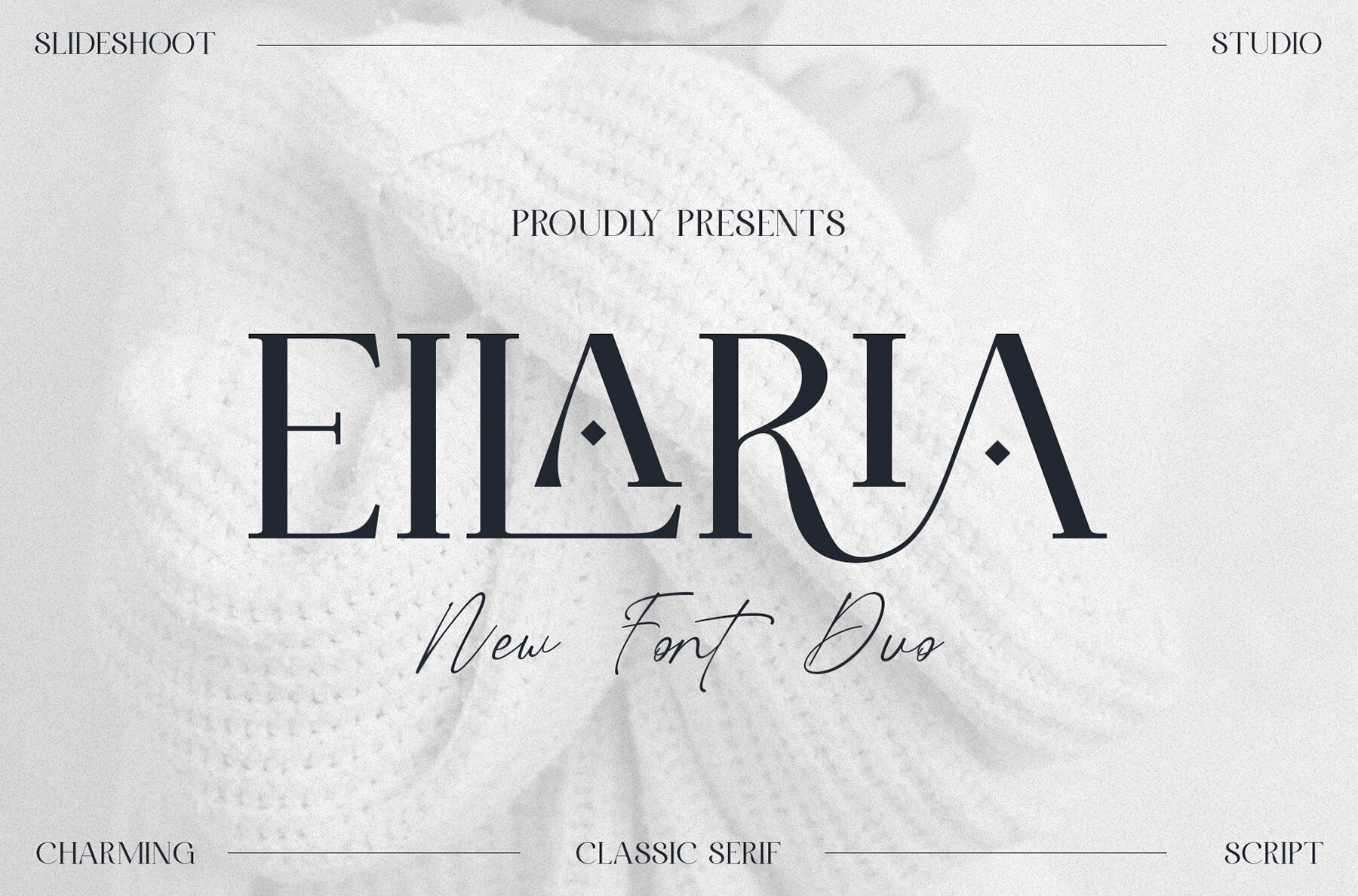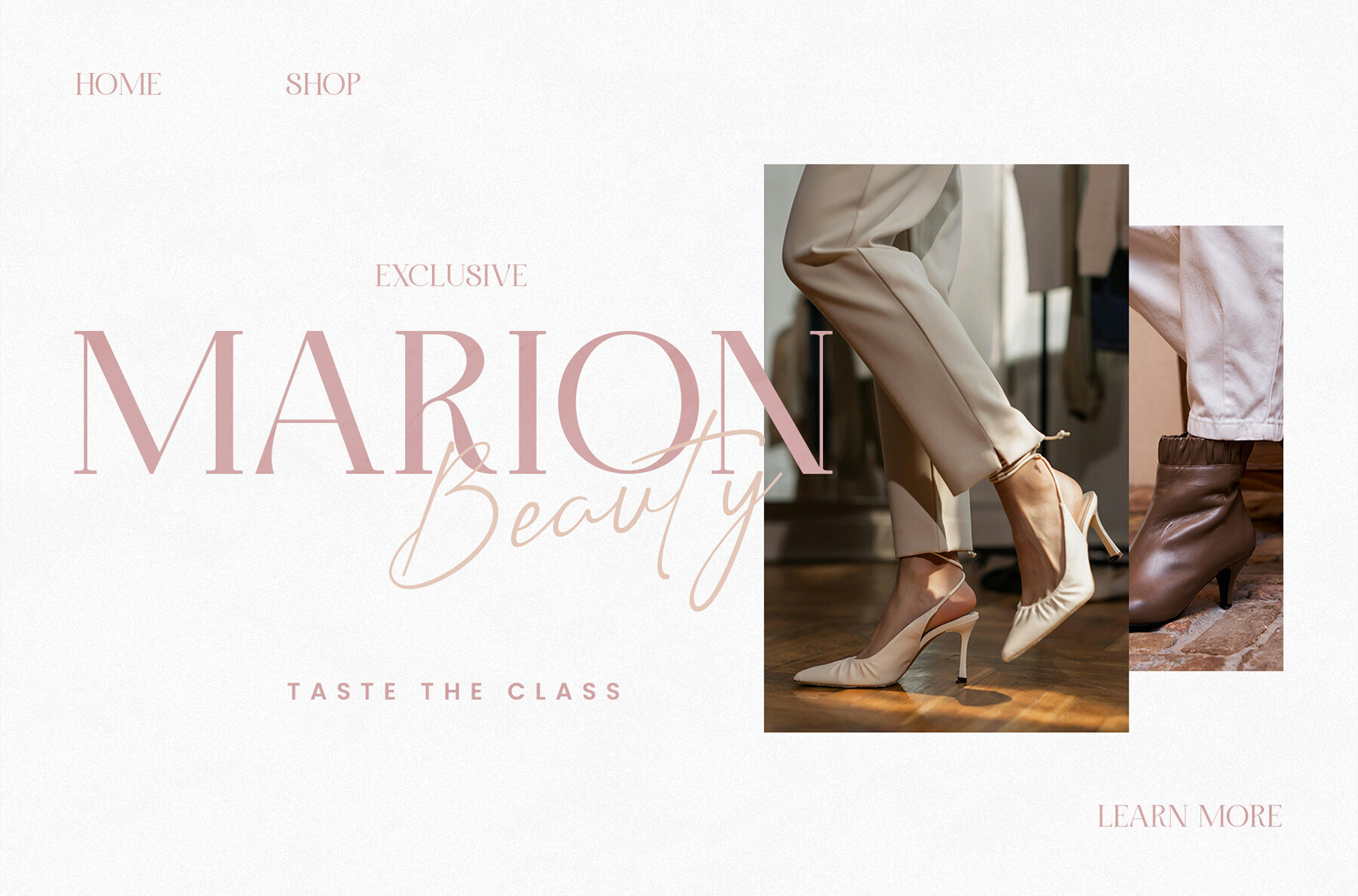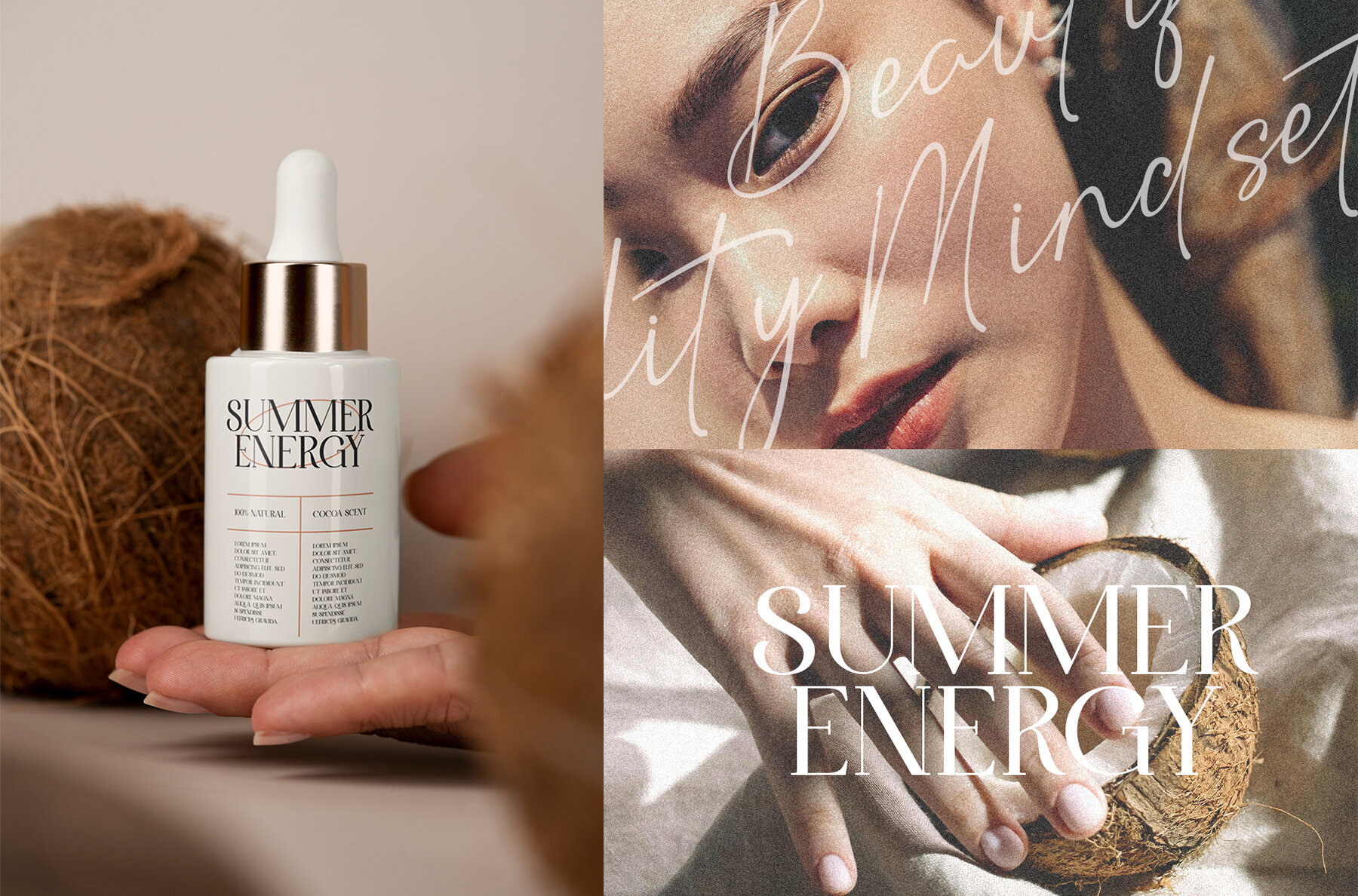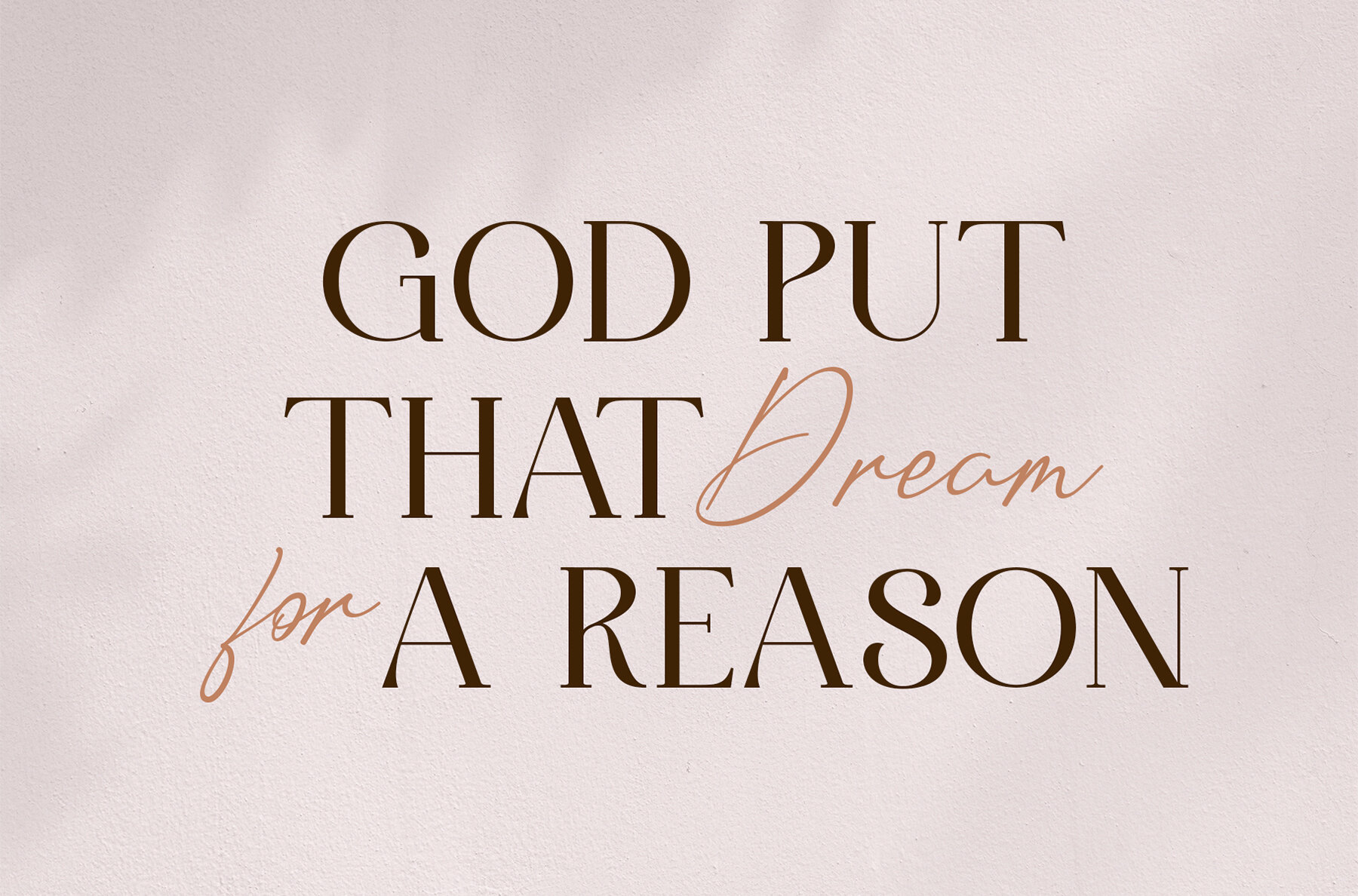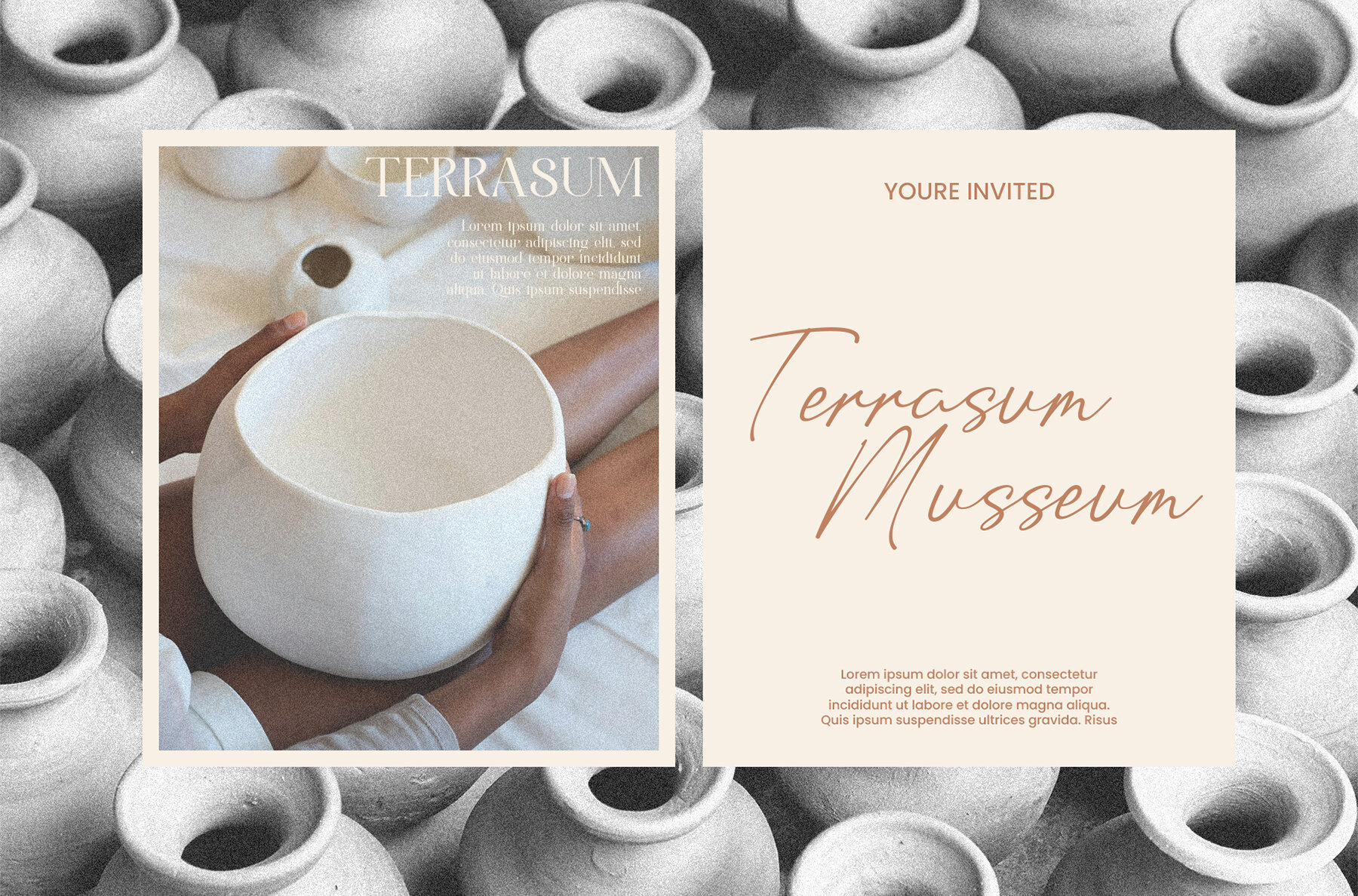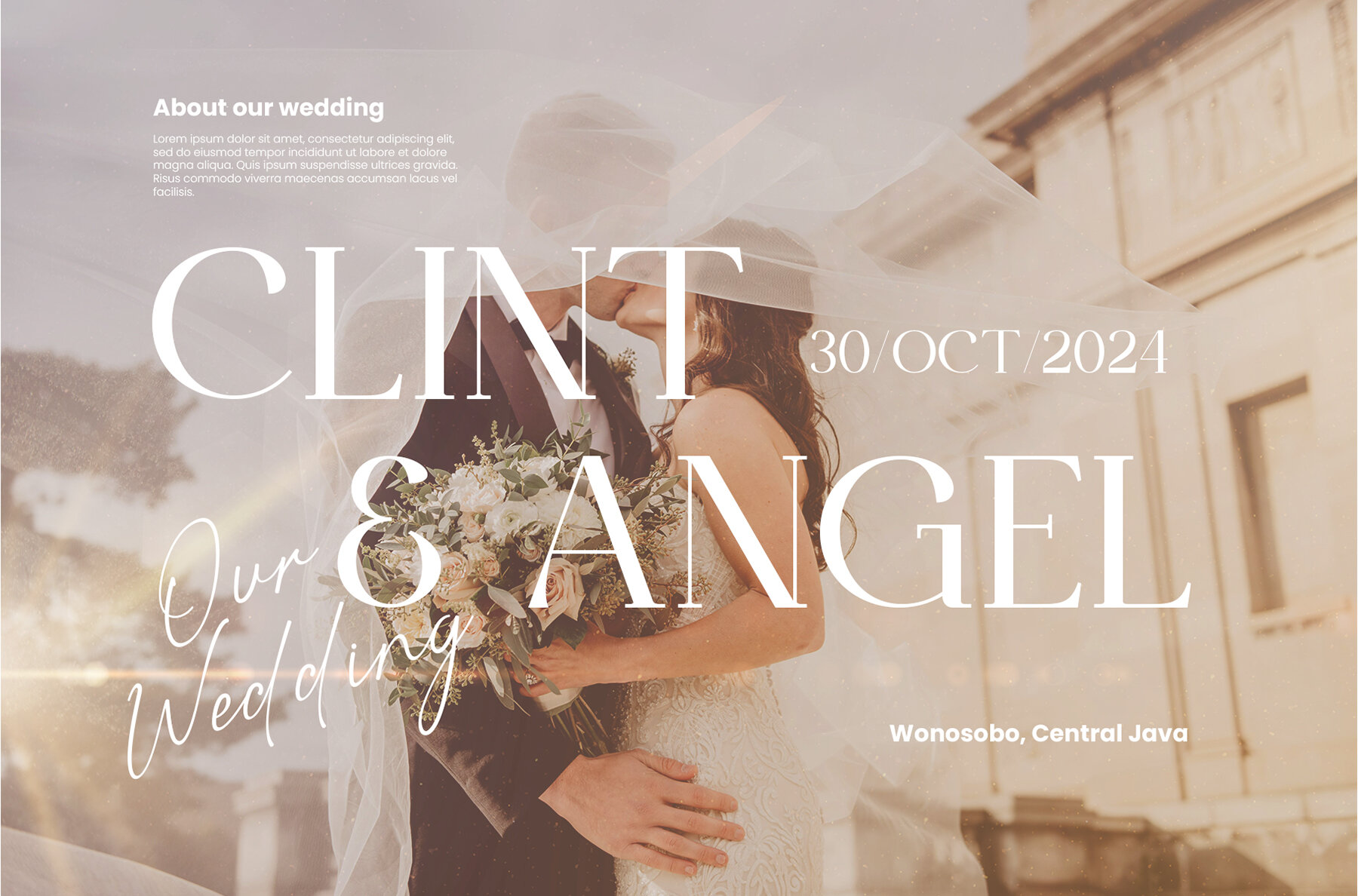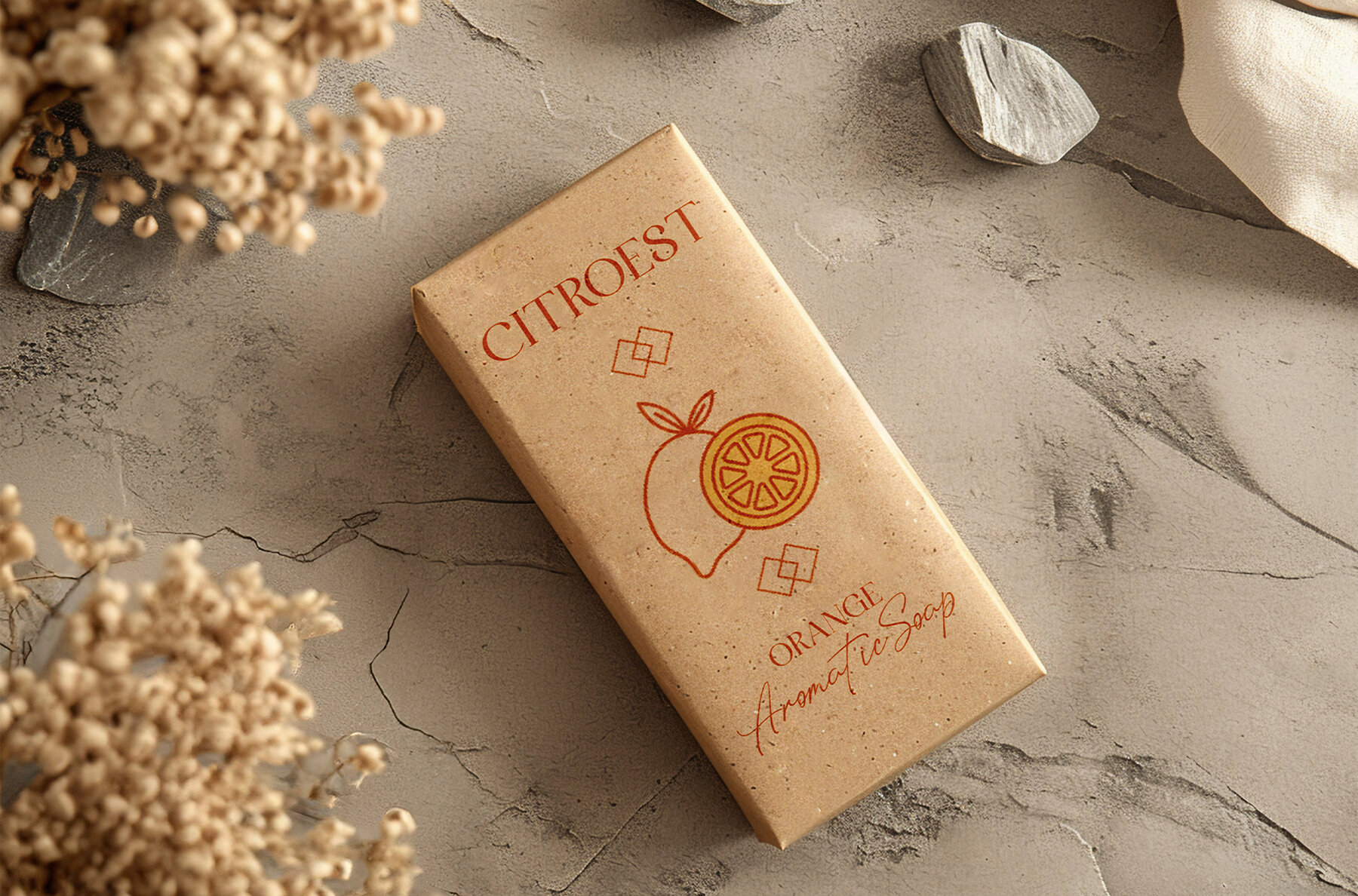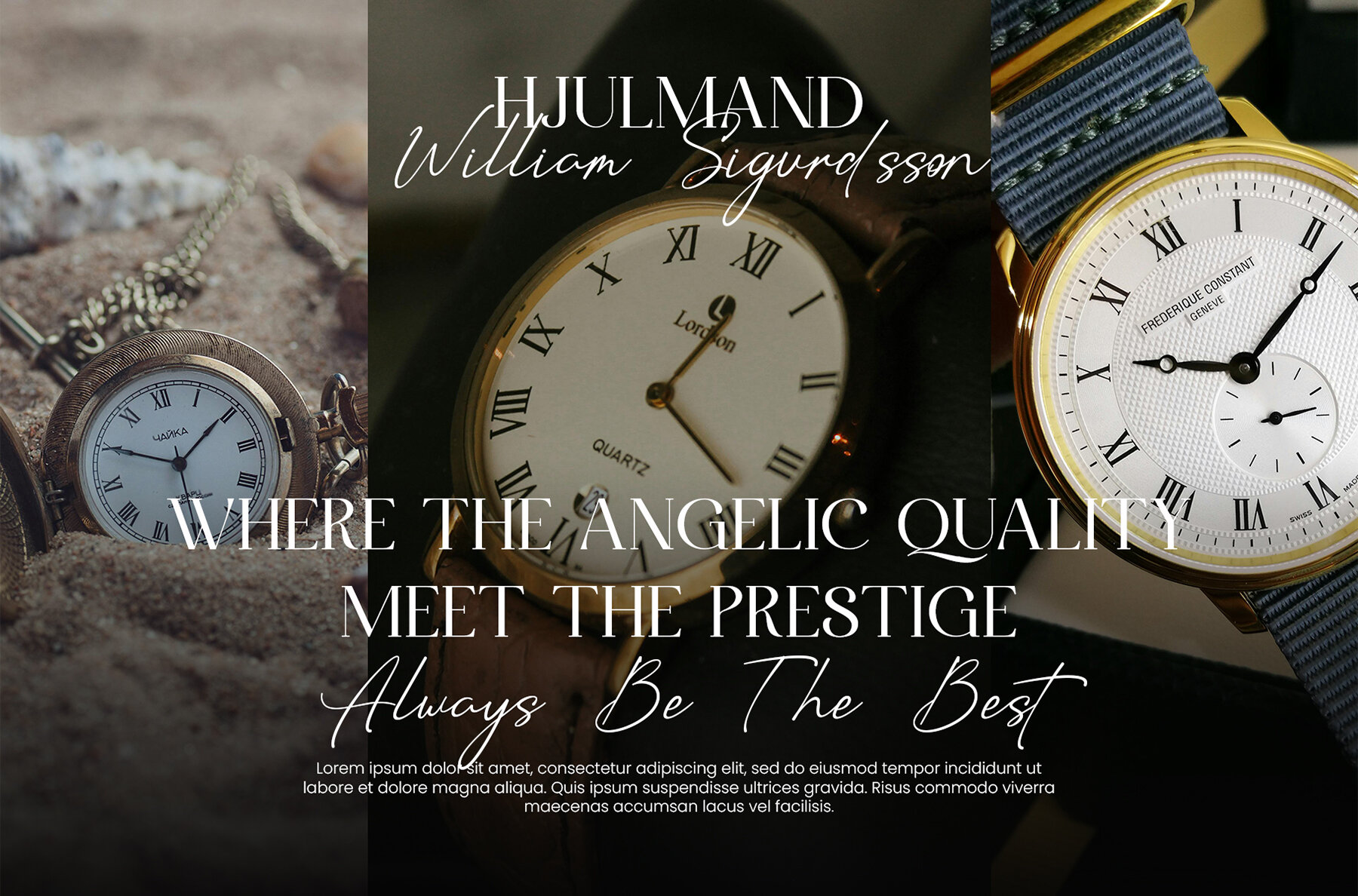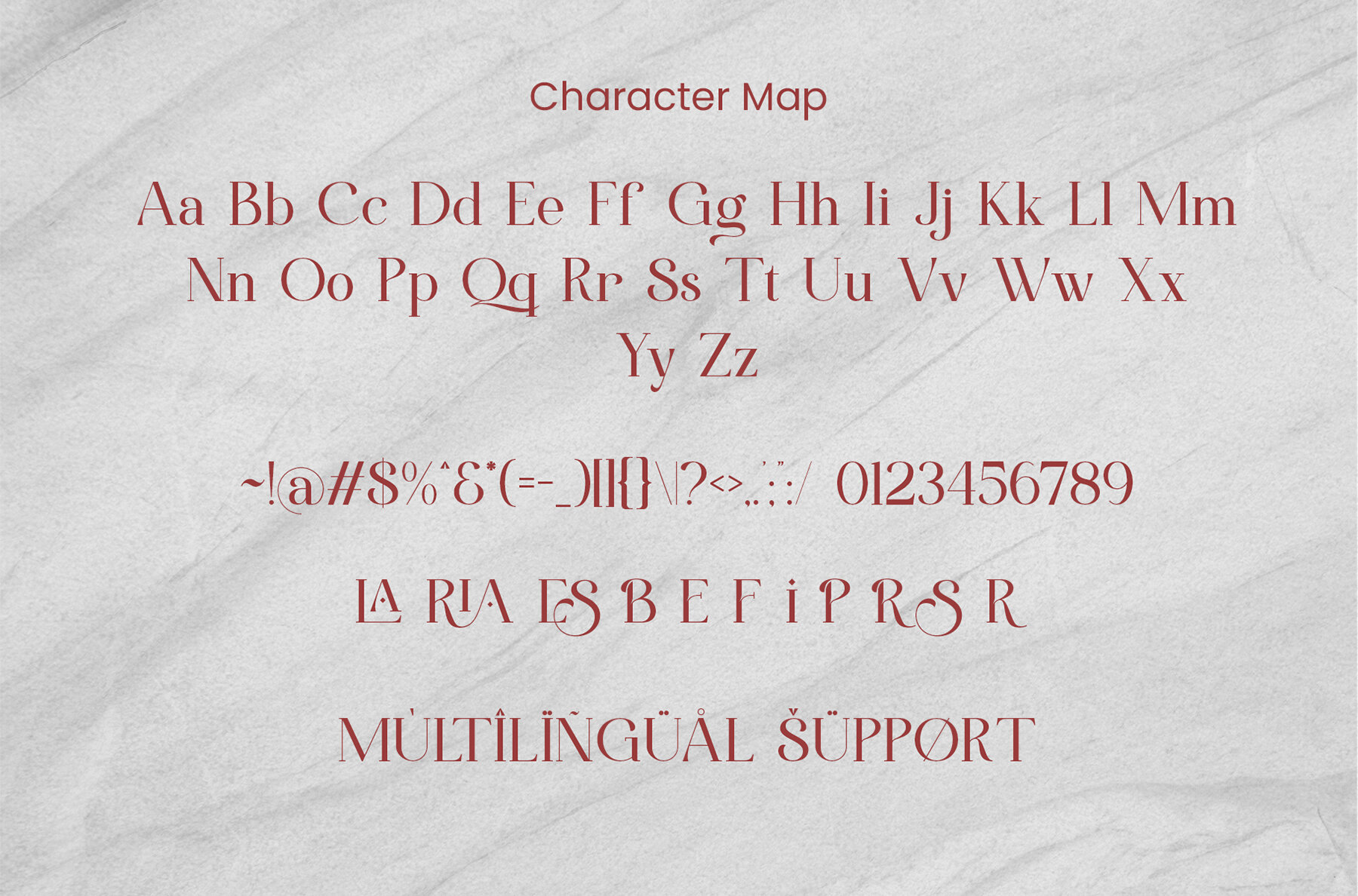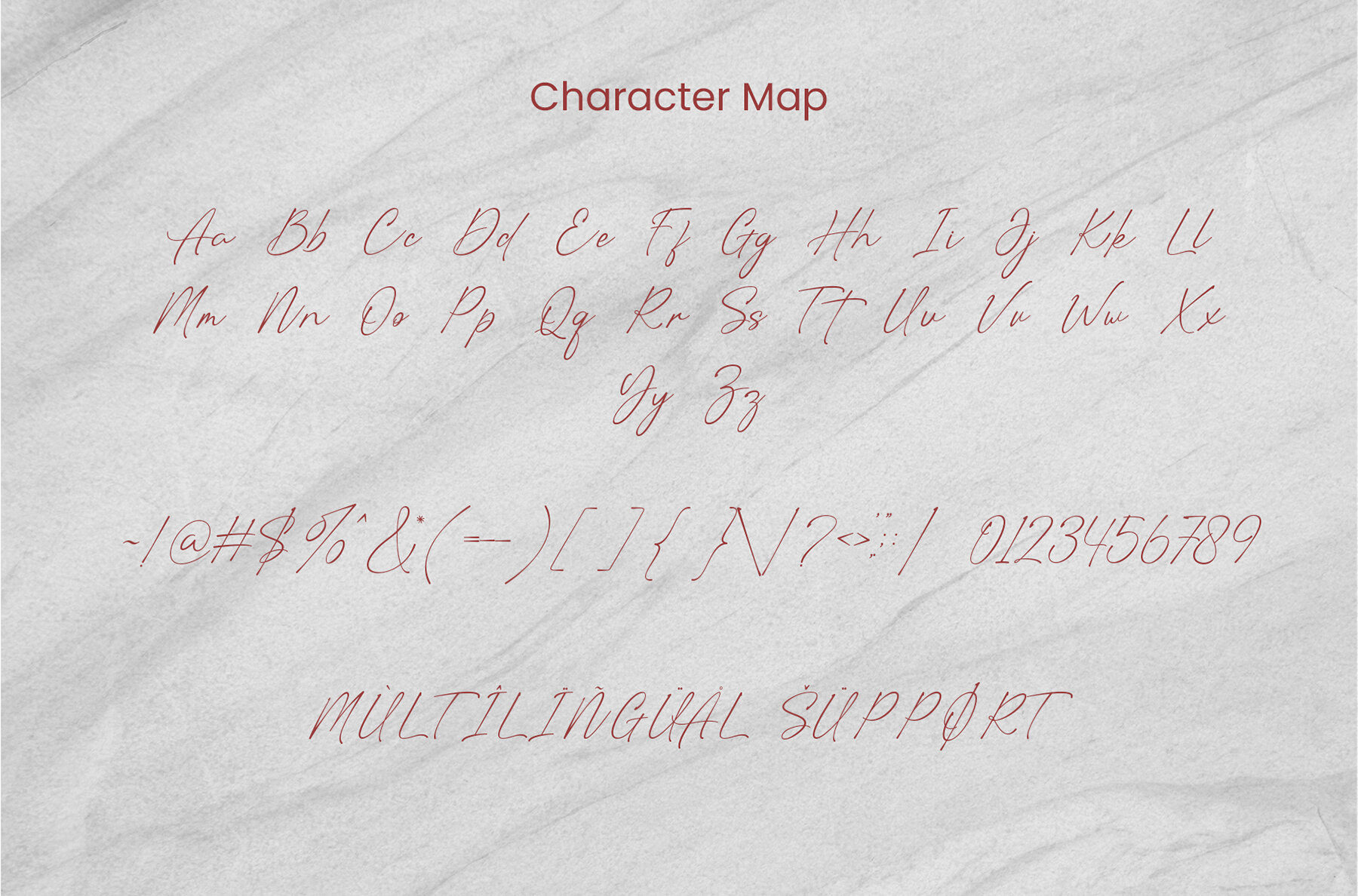
Eilaria Font
Eilaria is a sophisticated duo font featuring a combination of modern serifs and scripts, designed to complement each other perfectly in various design applications. Ideal for titles, logos, branding, magazines, product packaging, and invitations, this typeface enhances any project with its elegant and stylish aesthetic.
Featuring clean lines and smooth curves, Eilaria brings a graceful yet modern touch to your designs. Its classy and sophisticated appearance offers an extra level of refinement, making it a versatile choice for any creative endeavor where elegance meets functionality.